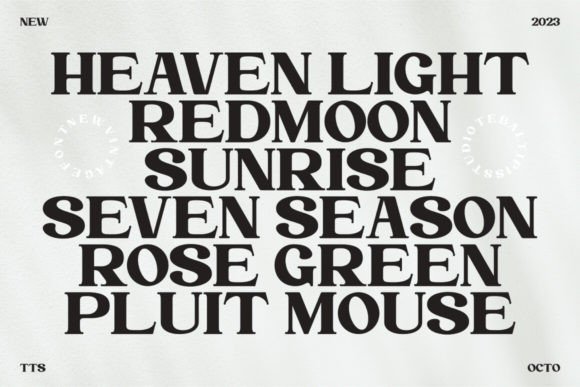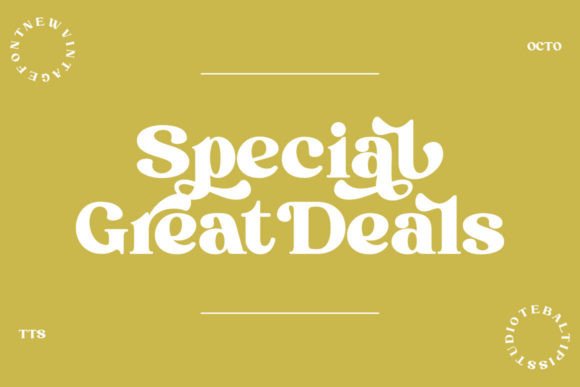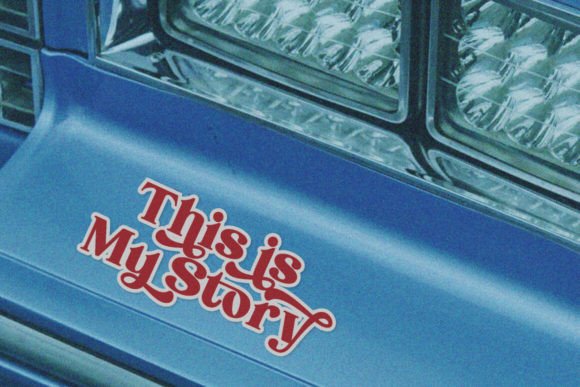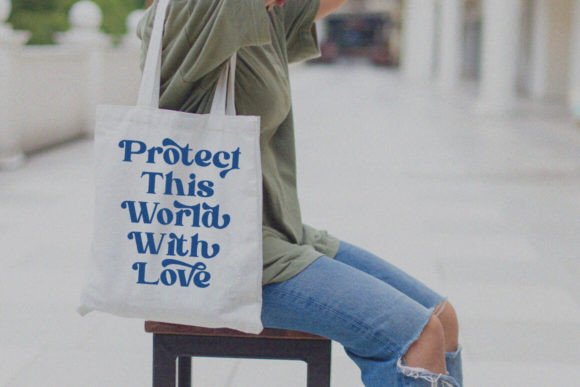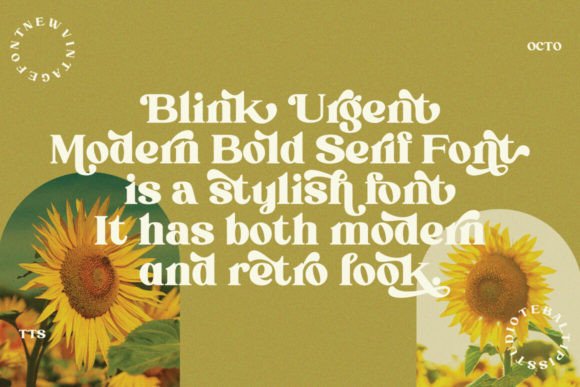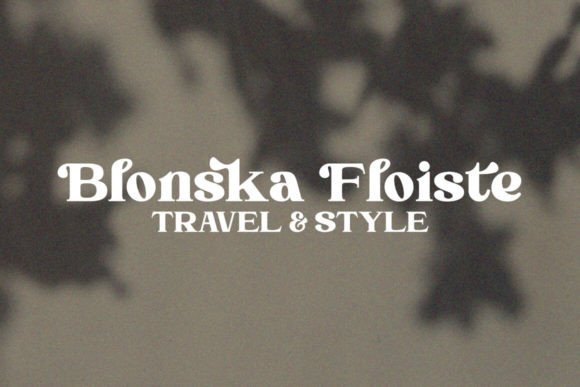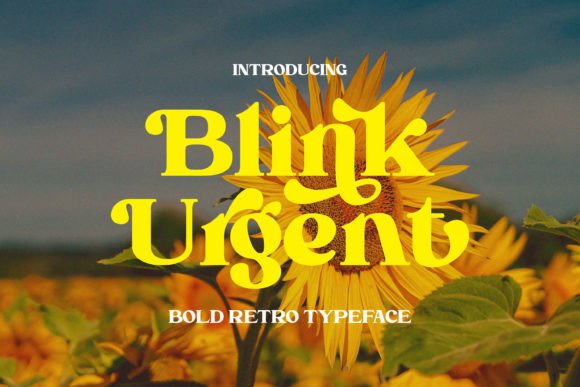
I still remember the frustration of scrolling through font after font, searching for the perfect one to bring my design to life. It was as if I was on a mission to find a needle in a haystack. My client wanted a bold, vintage-inspired font that would capture the essence of mid-20th-century advertising. I tried font after font, but nothing seemed quite right. That was until I stumbled upon Blink Urgent.
First Impressions: A Bold Retro Serif Display Font
Blink Urgent is a bold retro serif display font that effortlessly captures the essence of the past with a sense of urgency. Its chunky, eye-catching letterforms transport your design to the bold and adventurous era of mid-20th-century advertising. Perfect for headlines and branding, Blink Urgent commands attention with its vintage charm and unmistakable flair.
• ✨ The bold, chunky letterforms are perfect for making a statement
• ✅ The retro vibe is spot on, transporting your design to a bygone era
• 🎉 The font is PUA encoded, making it easy to access all the glyphs and ligatures
• 💥 The font is incredibly versatile, suitable for a wide range of design projects
• 🤔 The font may not be suitable for body text, as it’s quite bold and attention-grabbing
• ⚠️ Some users may find the font a bit too “in-your-face” for certain design projects
The Designer Inspiration Behind Blink Urgent:
Blink Urgent was inspired by the bold, adventurous era of mid-20th-century advertising. The font’s designer was fascinated by the iconic typography of the time, which seemed to embody a sense of confidence and optimism. They set out to create a font that would capture that essence, with a bold, chunky design that’s perfect for making a statement.
What is Blink Urgent? Blink Urgent is a bold retro serif display font that’s perfect for headlines and branding.
Is Blink Urgent PUA encoded? Yes, Blink Urgent is PUA encoded, making it easy to access all the glyphs and ligatures.
Can I use Blink Urgent for body text? While Blink Urgent is incredibly versatile, it may not be the best choice for body text due to its bold, attention-grabbing design.
Is Blink Urgent suitable for digital use? Yes, Blink Urgent is suitable for both print and digital use, and can be used in a wide range of design projects.